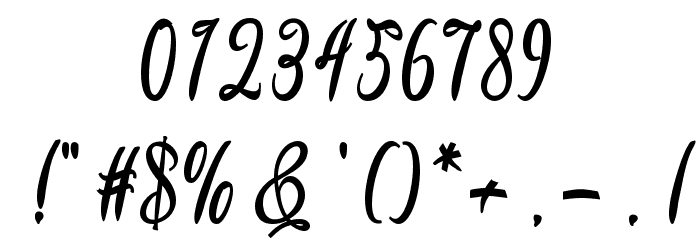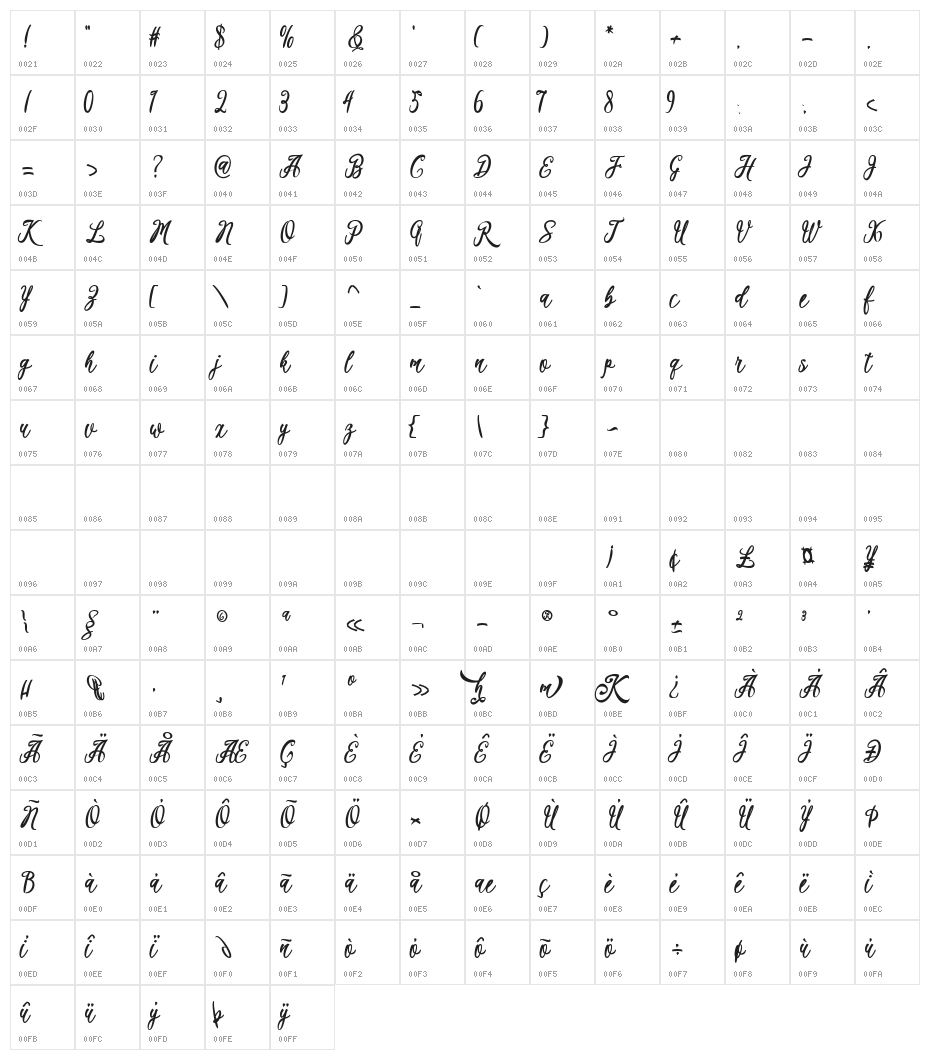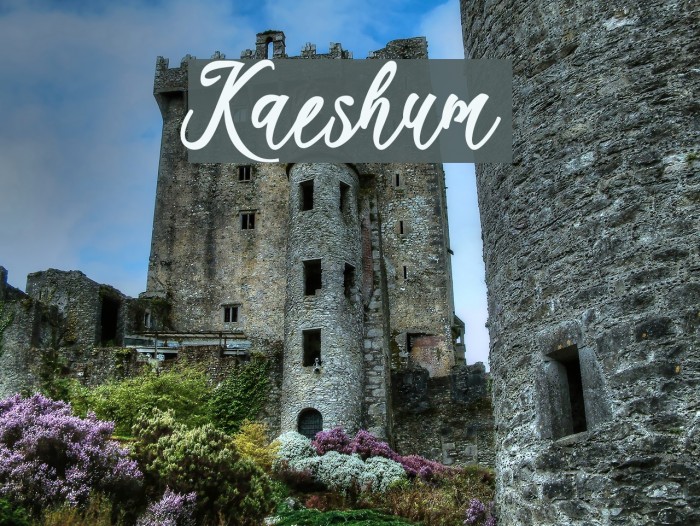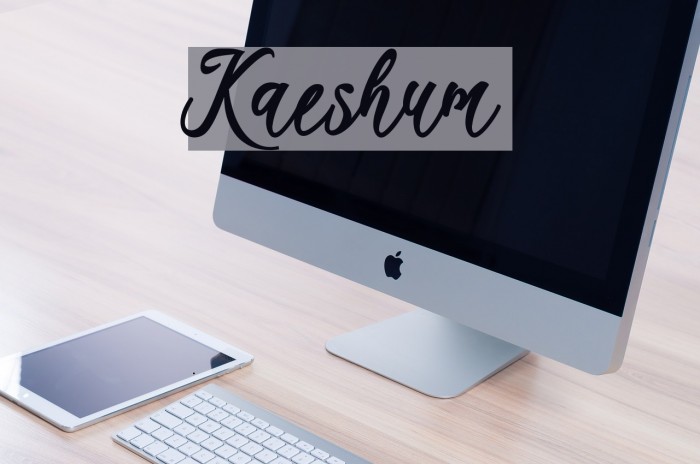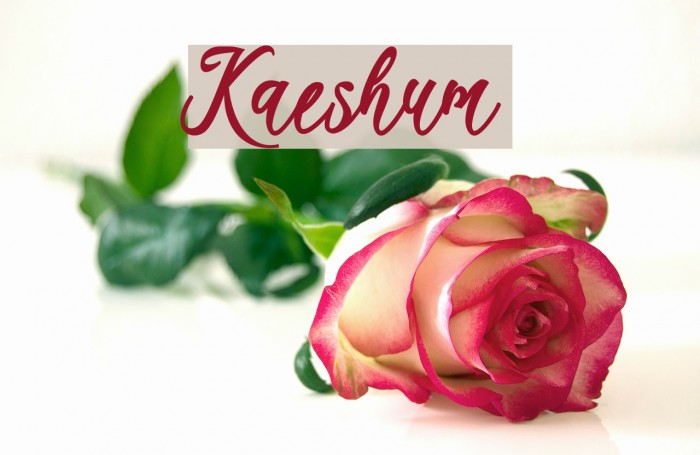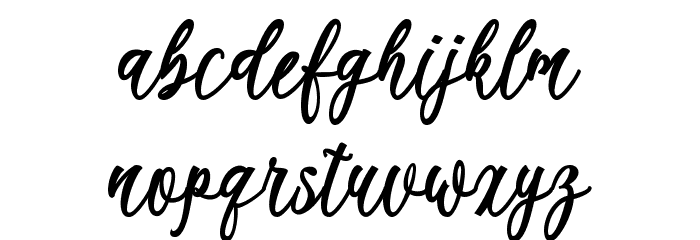
Kaeshum Font
Kaeshum Description
This font exudes a classic and elegant script style, characterized by its flowing, cursive letterforms. The uppercase letters are ornate and slightly exaggerated, giving a sense of sophistication and flair. The lowercase letters maintain a consistent flow, with smooth connections between characters, enhancing readability while retaining an artistic touch. The numerals are styled to match the cursive theme, with gentle curves and a balanced appearance. Special characters are thoughtfully designed to integrate seamlessly with the overall script aesthetic. This font is ideal for projects that require a touch of elegance and personal expression.
| Proposed Projects | Wedding invitations, greeting cards, branding, and logo design. |